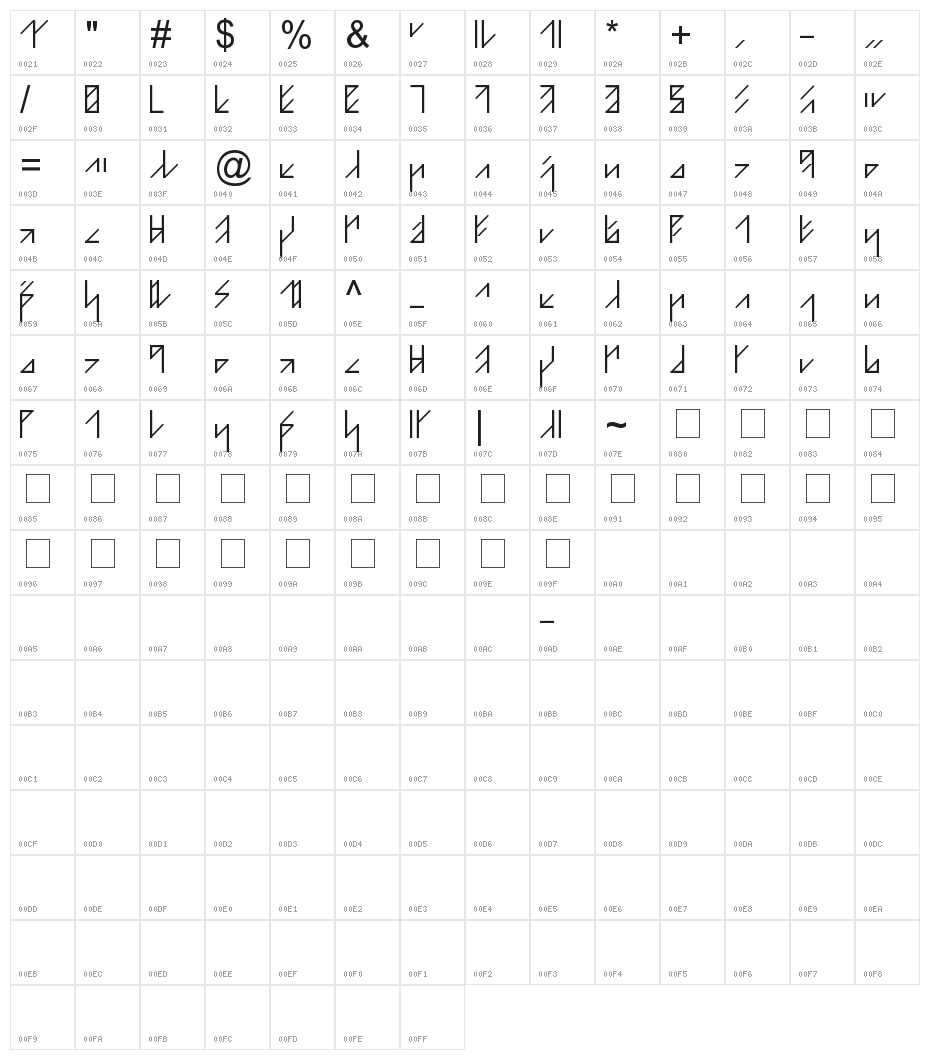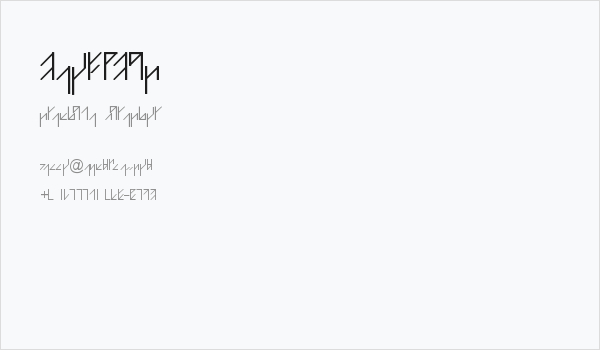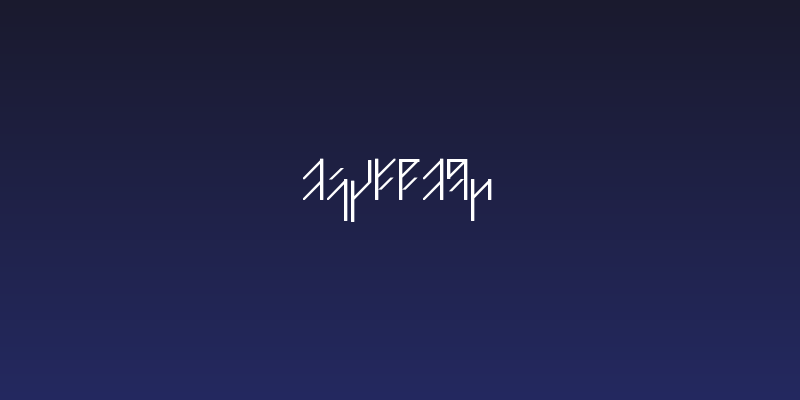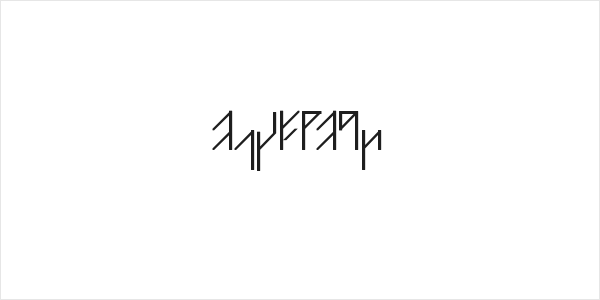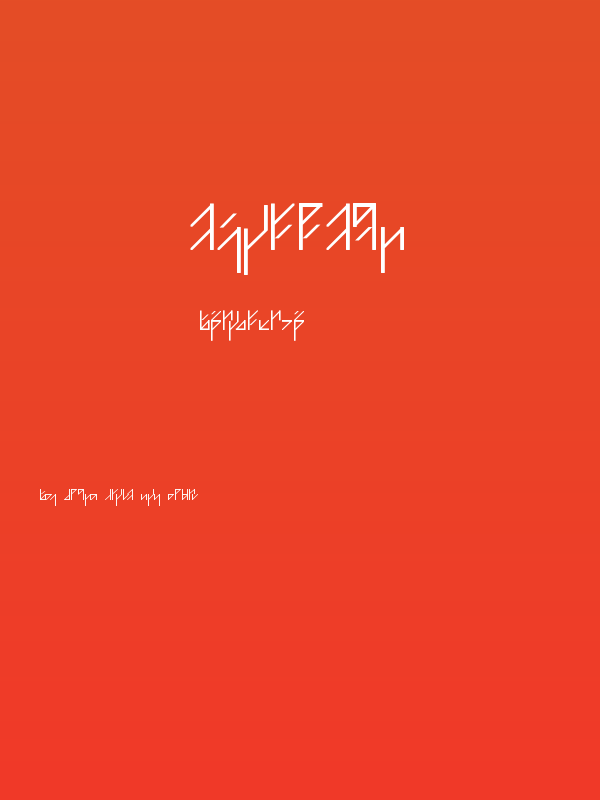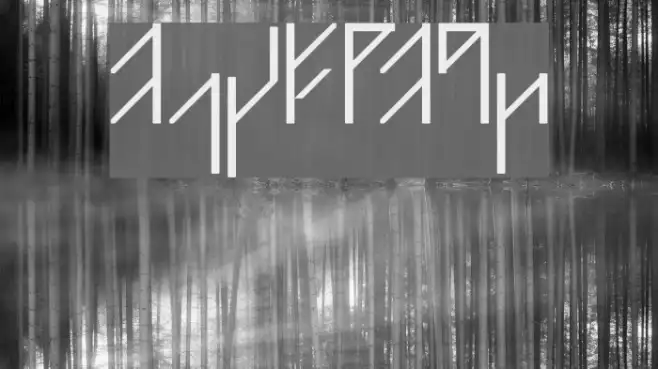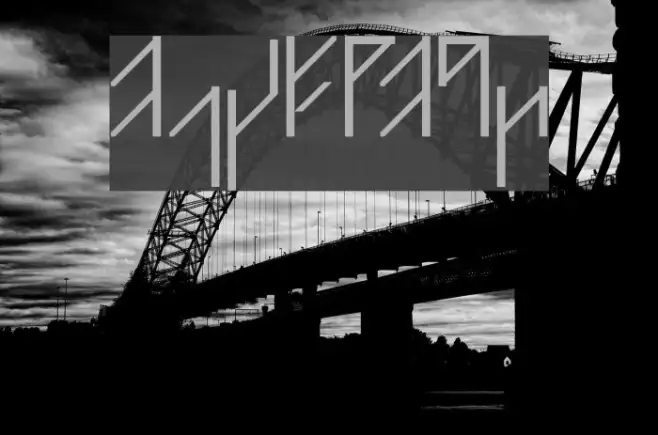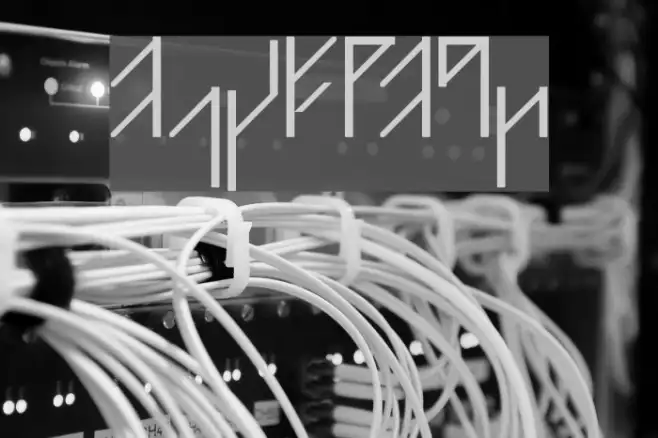
NeoRunic Font
NeoRunic Description
This font features a unique, angular design reminiscent of ancient runic alphabets, yet with a modern twist. The characters are composed of straight lines and sharp angles, giving it a geometric and futuristic appearance. Each letter is distinct, with a consistent use of diagonal and vertical strokes. The font maintains a uniform line thickness throughout, contributing to its cohesive look. Its unconventional style makes it stand out, ideal for creative projects that require a bold statement. The numerals and special characters follow the same angular theme, ensuring visual harmony across all elements.
| Proposed Projects | Ideal for video game design, sci-fi movie posters, fantasy book covers, and branding for tech companies. |